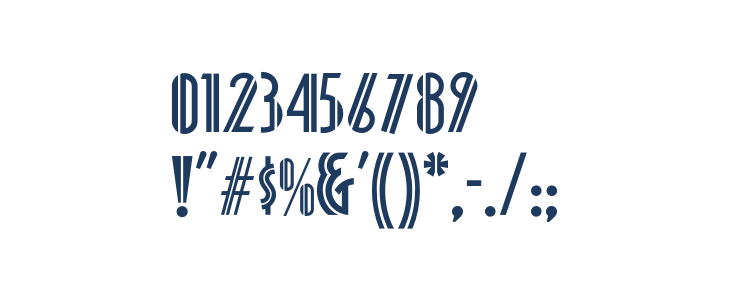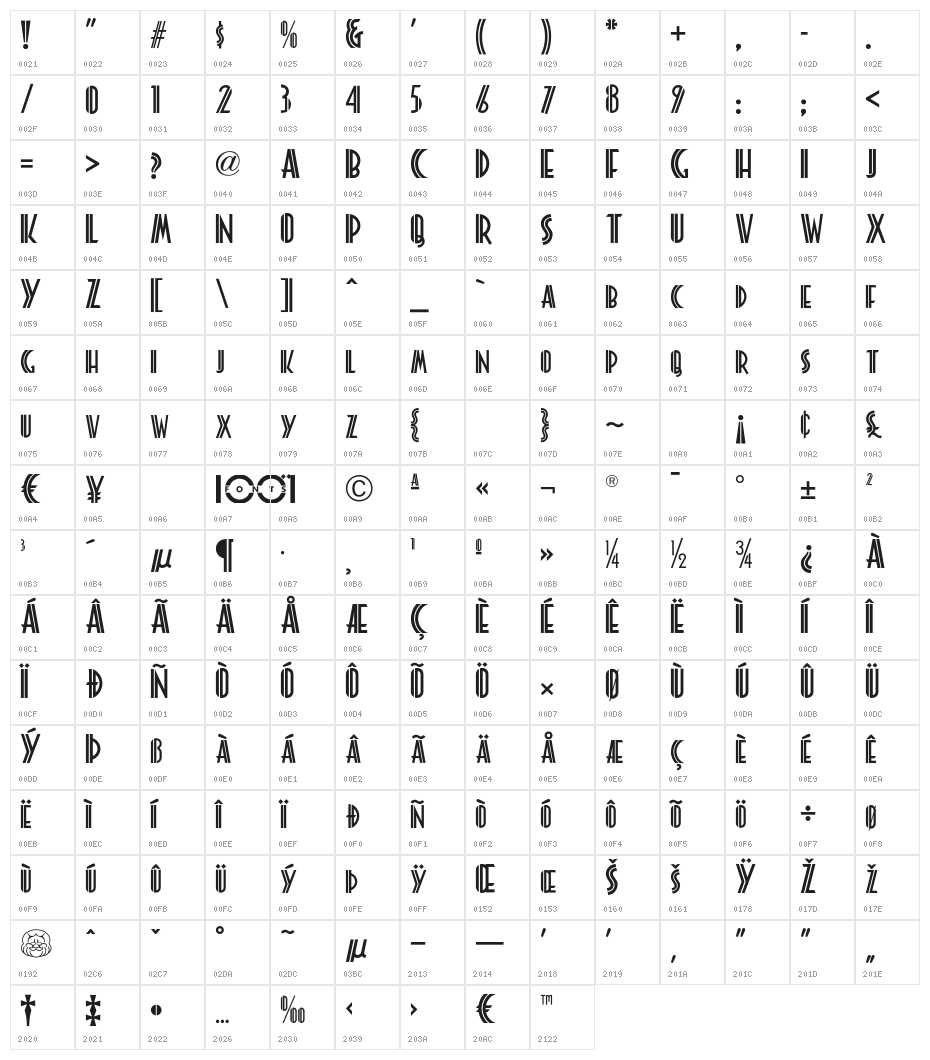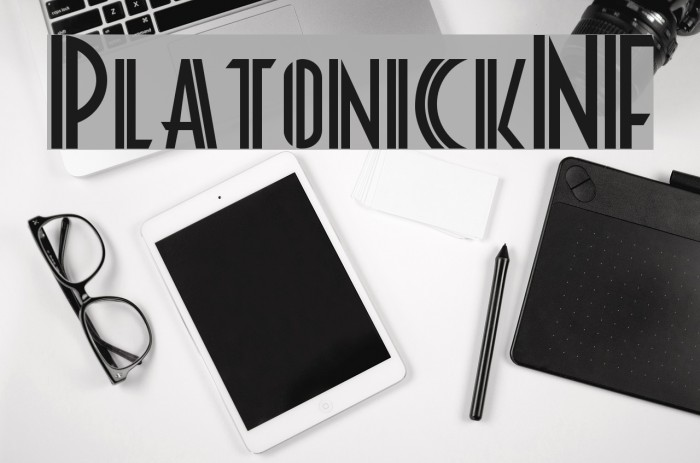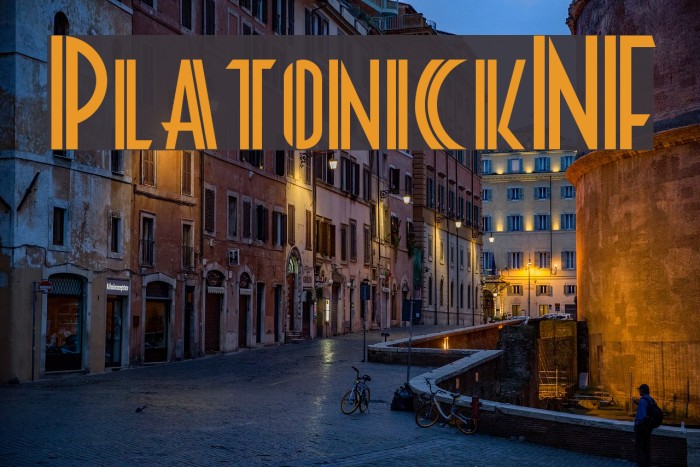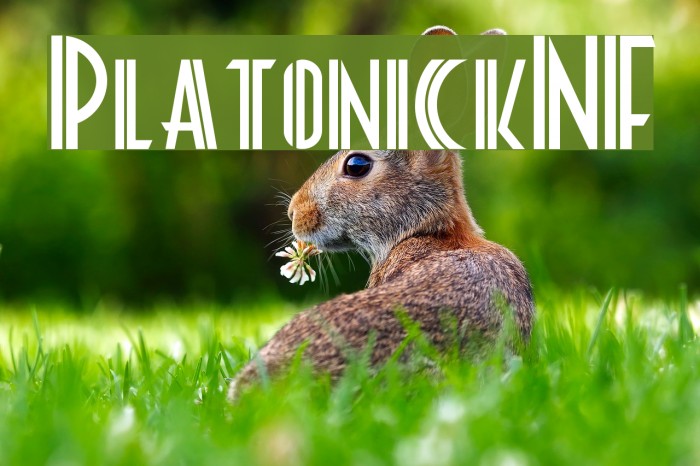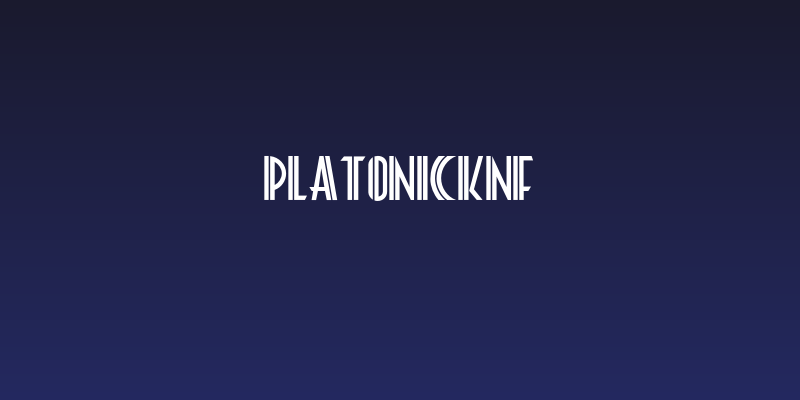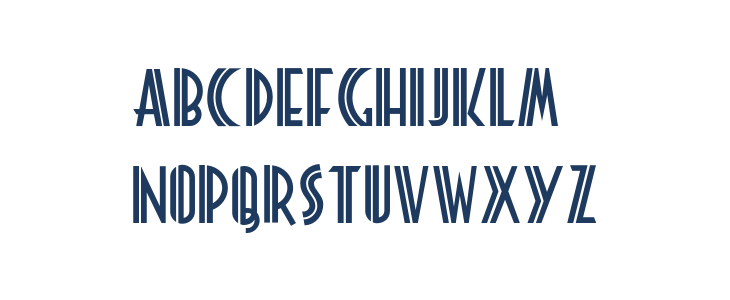
PlatonickNF Font
PlatonickNF Description
This font features a bold and striking design with a geometric and futuristic aesthetic. The characters are crafted with sharp angles and clean lines, creating a sense of movement and energy. The uppercase letters are particularly distinctive, with unique shapes that make them stand out. The numbers and special characters maintain the same bold style, ensuring consistency across all text. This font is ideal for projects that require a modern and dynamic look, such as branding, posters, and digital media.
| Proposed Projects | Ideal for branding, posters, digital media, and any project needing a modern, energetic look. |